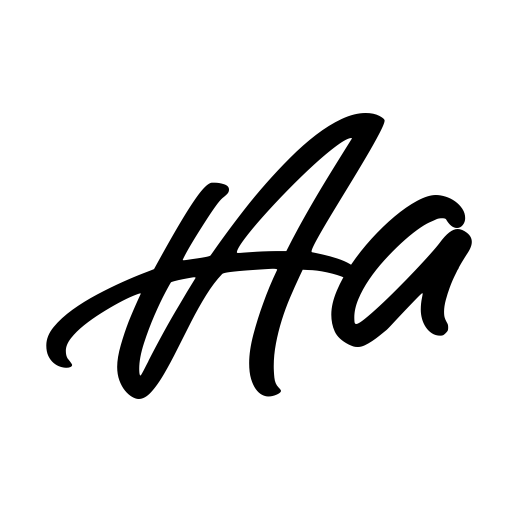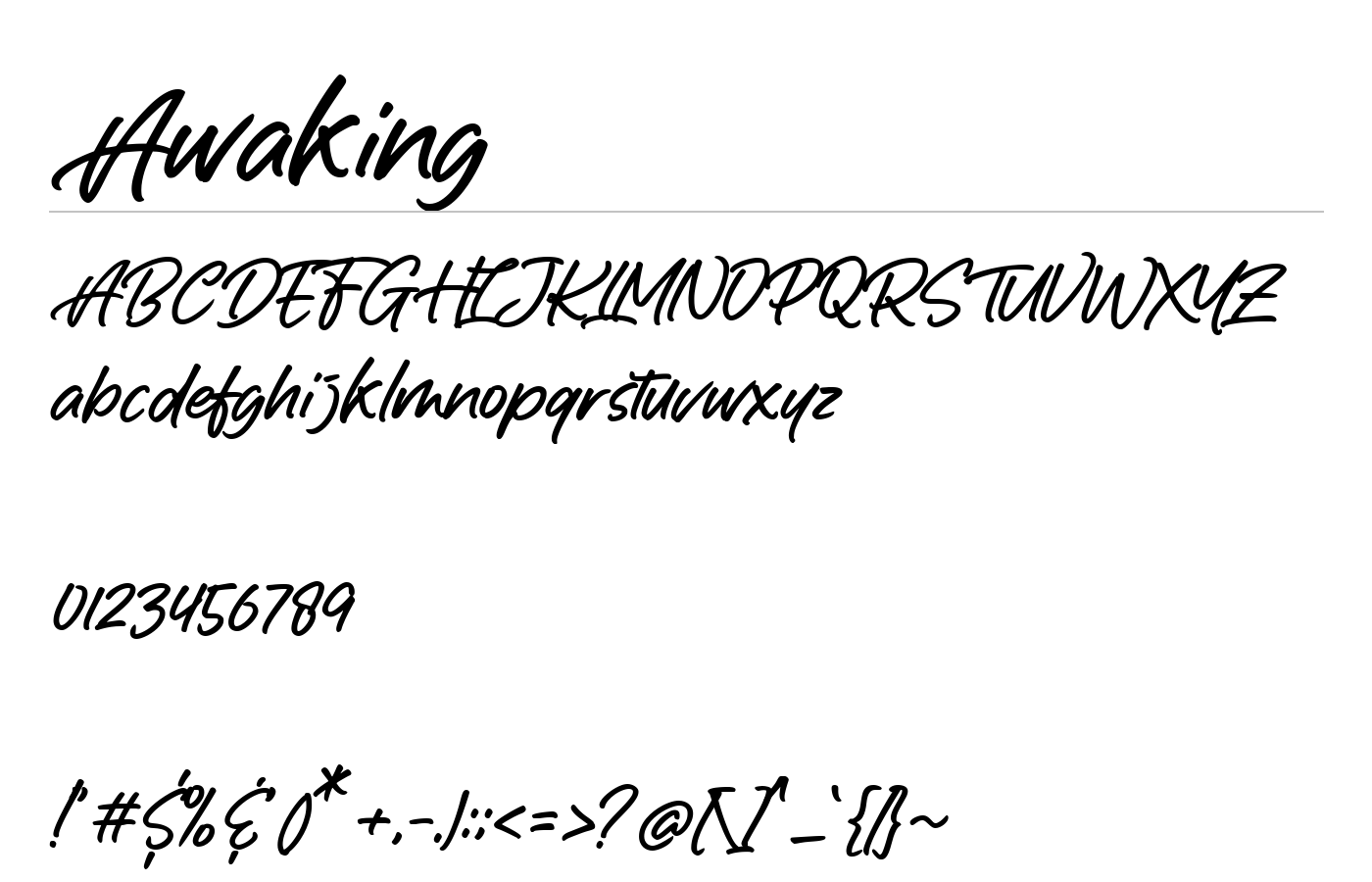
Awaking is a lively script font with a casual, handwritten feel, featuring smooth, flowing strokes and a slightly italicized slant that adds energy and movement. Its medium weight and balanced spacing make it versatile for creative and informal designs, perfect for branding, invitations, and eye-catching headlines that seek a personal and approachable touch. This font works well where a warm, friendly, and dynamic impression is desired.
Awaking Font
About Awaking Font